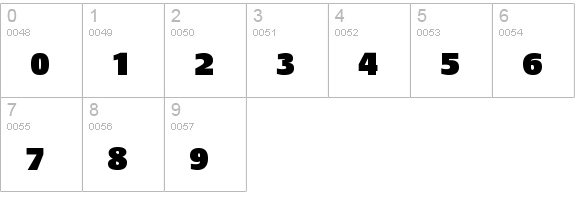
DTLArgoTCaps-Heavy is a heavy, high-impact variant in the DTLArgoTCaps typeface family \xE2\x80\x94 well suited to high-impact headlines, posters, and display advertising.
DTLArgoTCaps-Heavy is a striking and bold typeface that exudes strength and sophistication. With its distinctive heavy weight and unique design, this font is perfect for making a bold statement in your design projects. Its sharp angles and clean lines give it a modern and edgy feel, making it ideal for headlines, posters, and branding materials. What's even better is that DTLArgoTCaps-Heavy is available for free download at FontsMarket.com. This means you can easily access this powerful font and use it to elevate your designs without any cost. Don't miss out on the opportunity to add this impressive typeface to your font collection today!